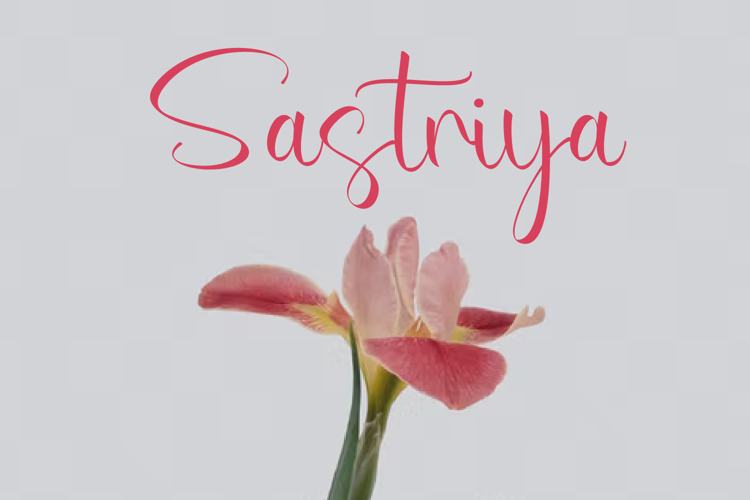
Sastriya Font
the latest style letters are perfect for wall displays, wedding invitations, social media post logos, advertisements, product packaging, product designs, labels, photography, watermarks, invitations, stationery, and any project that requires taste handwriting.